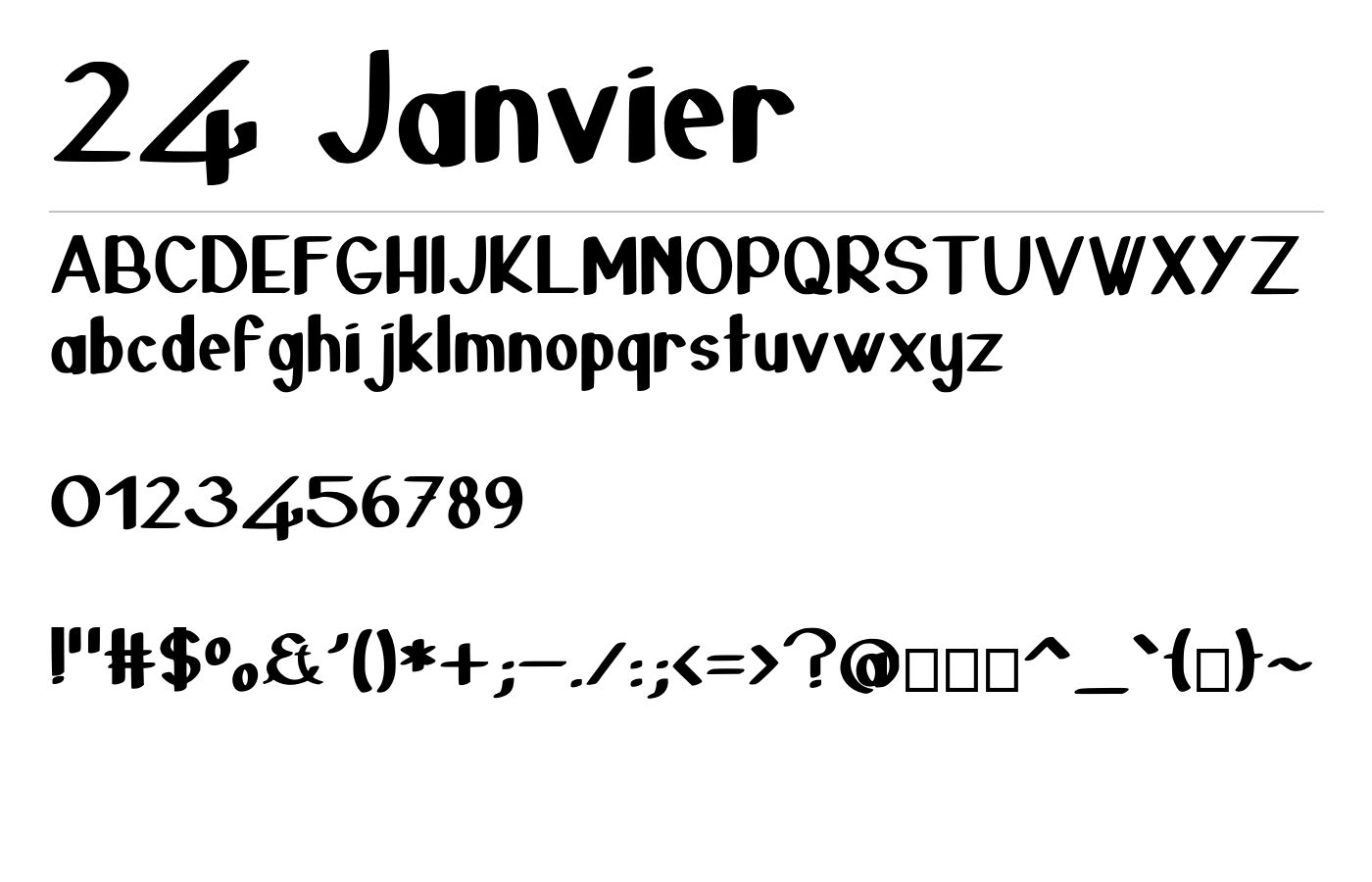
24 Janvier is a playful sans serif font with a lively, hand-drawn feel that balances casual charm and clear readability. Its irregular letterforms and moderate contrast give it a friendly, approachable vibe, making it ideal for creative projects, children's materials, and informal branding that seeks a warm, unique personality. This font works best in headlines and display uses where a touch of whimsy and individuality is desired.
24 Janvier Font
About 24 Janvier Font